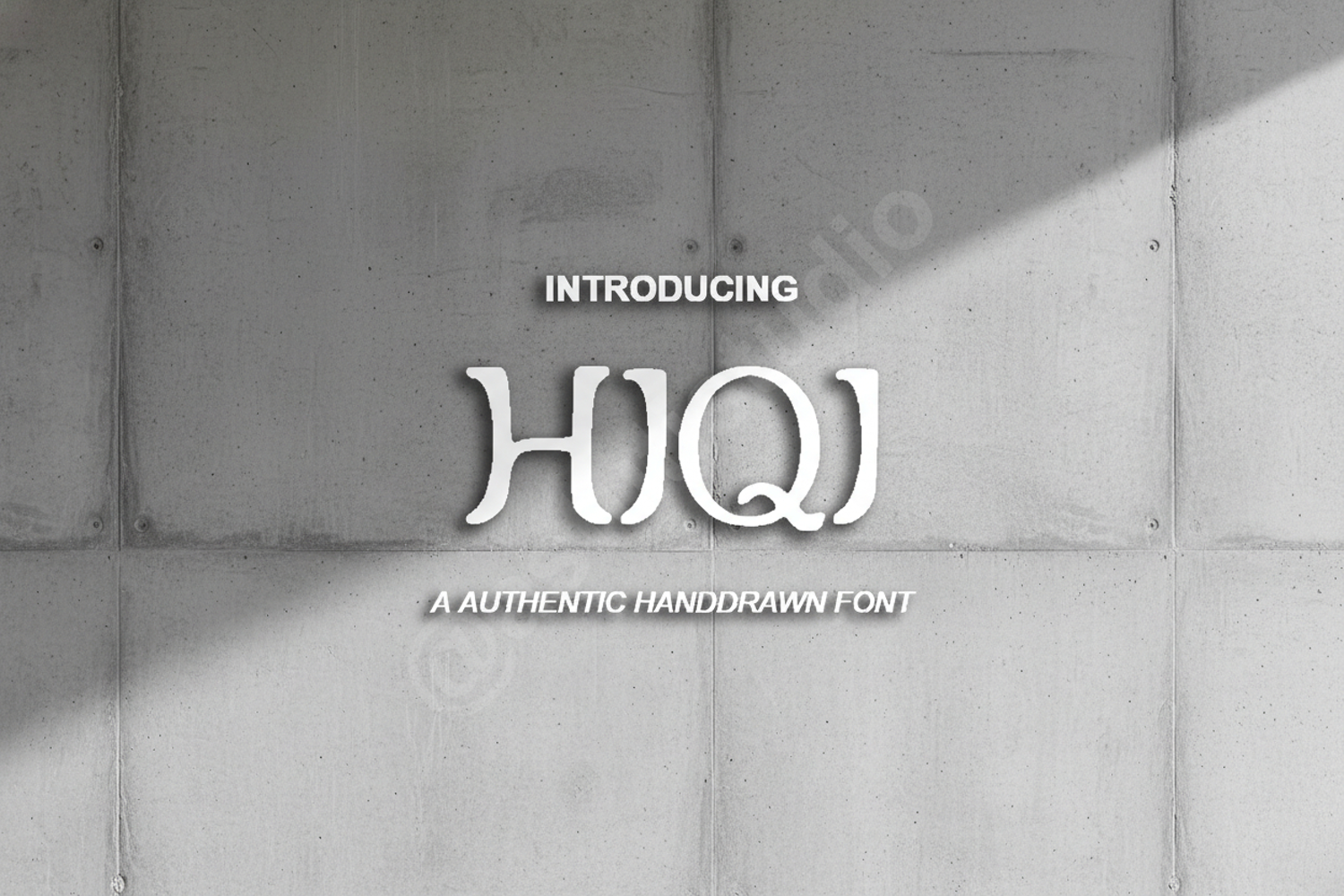
Hiqi - Modern Minimalist Sans Serif
Hiqi
Hiqi is a premium sans serif font meticulously crafted for designers who demand precision and contemporary elegance. This typeface embodies a clean, geometric aesthetic that seamlessly blends high-end sophistication with functional versatility. Whether you are working on a luxury brand identity or a minimalist digital interface, Hiqi provides a professional edge that ensures your typography stands out.